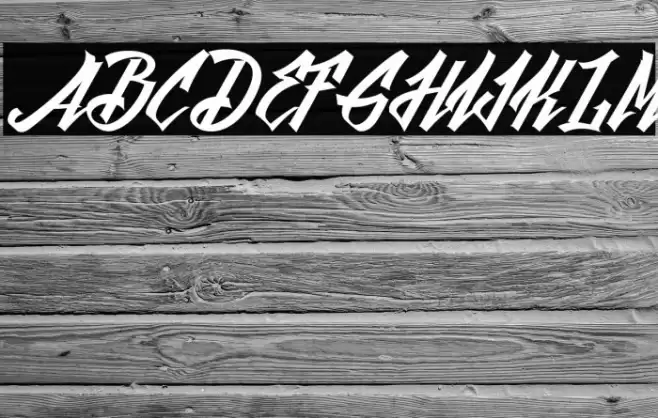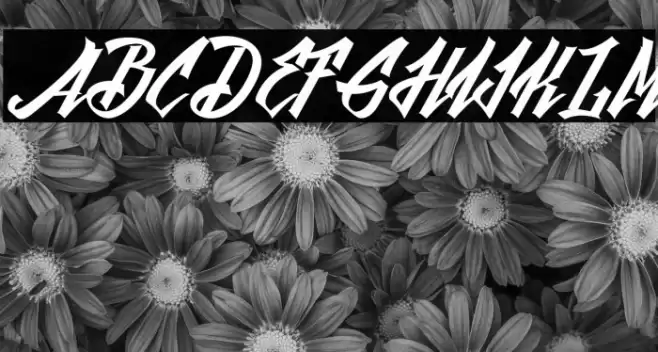
BlackFuture Font
BlackFuture Description
This font features a bold and dynamic script style with sharp, angular strokes and a strong presence. The uppercase letters are particularly striking, with elaborate flourishes and a sense of movement that suggests energy and modernity. The lowercase letters maintain the same boldness, ensuring consistency across the typeface. The numbers and special characters are equally stylized, making them suitable for attention-grabbing designs. This font is ideal for projects that require a dramatic and impactful look, such as branding, posters, and headlines.
A bold, dynamic script font with sharp, angular strokes and dramatic flair from Uncategorized fonts.
- Character Spacing: Tight